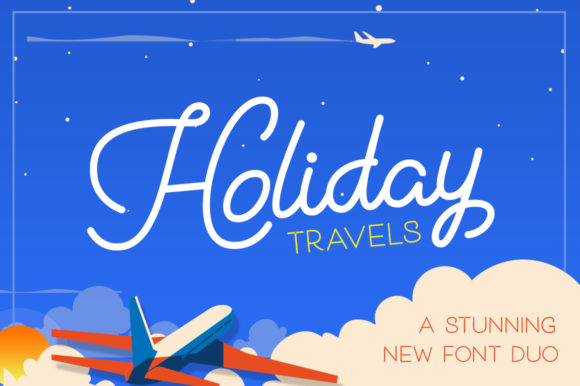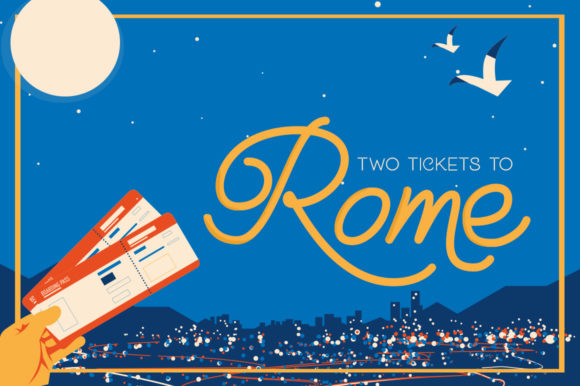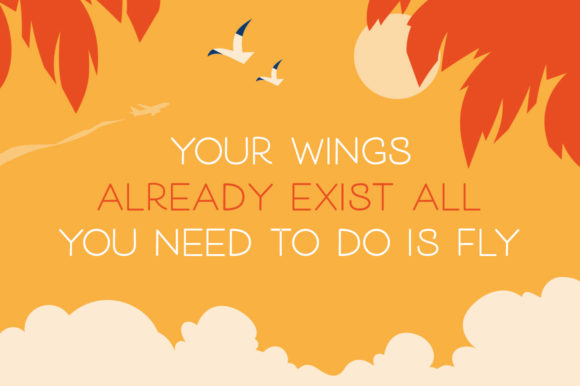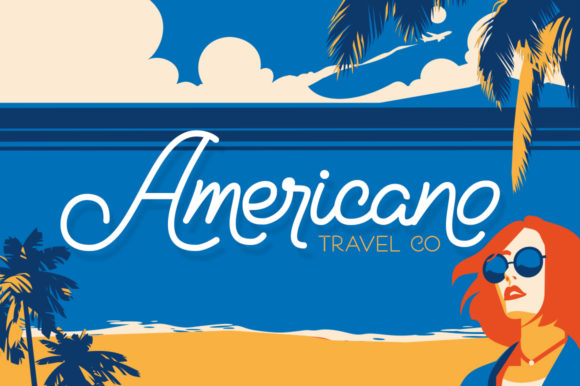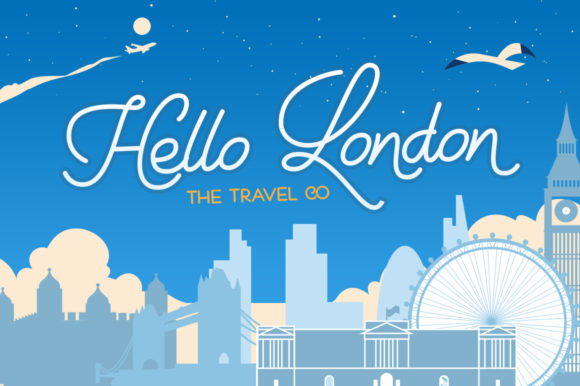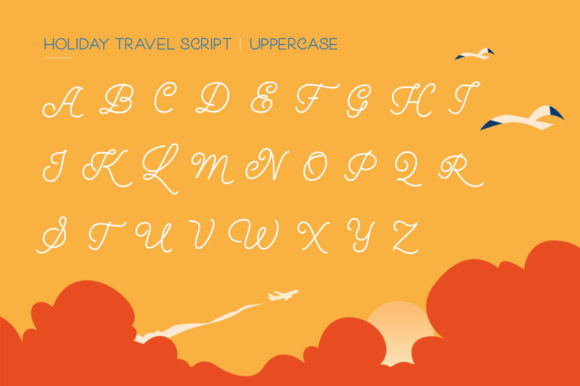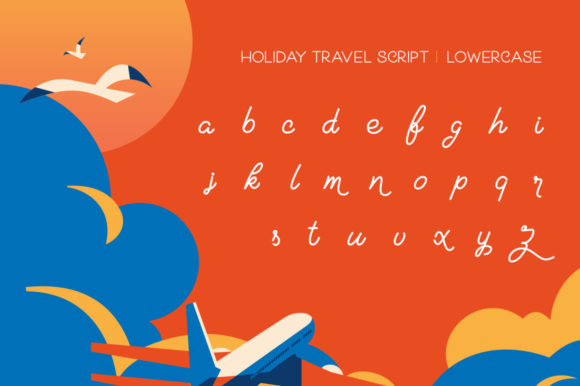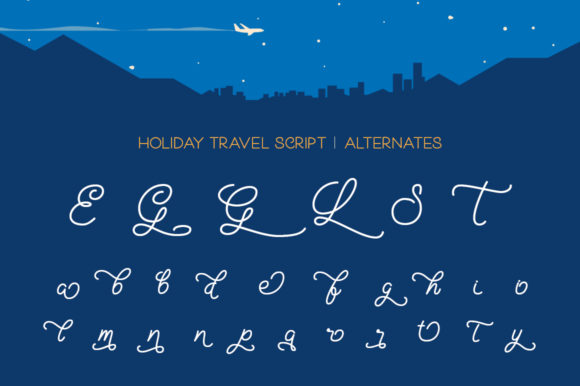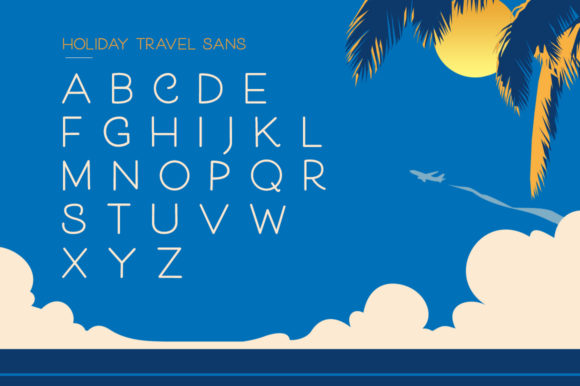
Holiday Duo Font
About Holiday Duo Font
Holiday Travel Duo includes one script font, with stunning alternates and a straight lined sans font. This incredible duo will turn any design project into a true stand out!